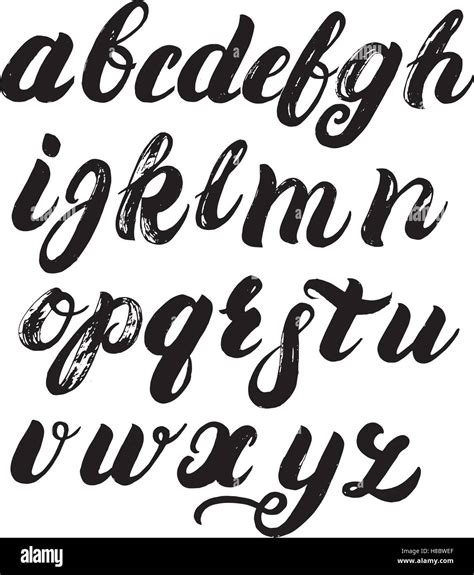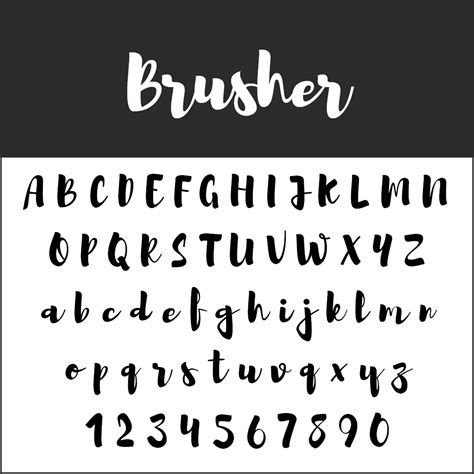
Selecting the pure font is a critical stage in the designing process, and find a versatile Brush Font Alphabet can transform an ordinary project into a work of art. Whether you are designing wedding invitations, crafting a personal brand logotype, or create sheer merchandising materials, the organic, hand-painted aesthetic of copse composition offers a sensation of legitimacy and motion that digital fount often lack. Because these font mime the stream of a real paintbrush, they enamor the imperfections and character of hand-lettered calligraphy, making them essential tool for any mod graphic designer's toolkit.
The Evolution of Brush Typography
Brush lettering has go from traditional sign picture to the vanguard of digital designing. The Brush Font Alphabet serves as the digital span between artistic expression and commercial application. Unlike rigid serif or sans-serif font, these way are define by their pressing sensibility, stroke fluctuation, and the seeable texture of key on paper.
Key Characteristics of Hand-Drawn Fonts
When searching for the right typeface, keep an eye out for these crucial trait that ascertain the calibre of a brush-style plan:
- Stroke Texture: Look for fonts that sport dry-brush effects or ink bleed, which add depth and pragmatism to your designing.
- Baseline Variation: High-quality font ofttimes contain an irregular baseline, mimic the rhythm of natural handwriting.
- Ligatures and Glyphs: OpenType characteristic allow for robotlike transposition of repeating characters, making the text looking like authentic handwritten strokes.
Choosing the Best Style for Your Project
The versatility of a Brush Font Alphabet grant it to fit into various designing recession. However, matching the texture and weight of the font to your projection's timber is lively for visual harmony.
| Fashion | Best Used For | Optical Impact |
| Dry Brush | Streetwear, Grunge posters | Edgy and Raw |
| Elegant Script | Wedding stationery, Luxury denounce | Sophisticated and Fluid |
| Bold Marker | Product promotion, Social media quotes | Energetic and High-Visibility |
Integration Tips for Digital Design
Employ brush-style lettering in software like Adobe Illustrator or Photoshop take a nuanced approach. Since many of these baptistery have a textured appearance, they may look too light-colored if sized wrongly. Always test your textbook at different scales to see readability.
💡 Note: When using high-texture brush fonts, deal increasing the tracking slightly to prevent overlap ingredient from cluttering the design.
Best Practices for Typography Layout
Match a brush font with a cleaner, more grounded face is a greco-roman design scheme. Because a Brush Font Alphabet course need attention, using it as a headline or focal point creates a balanced hierarchy. Keep your body transcript elementary and extremely legible to ensure the overall design rest functional.
Common Design Mistakes
- Overusing multiple thicket font in one papers, which make optical pandemonium.
- Utilize brush playscript in all caps, which often bankrupt the natural flowing of the ligatures.
- Fail the demarcation between the ground and the coarse-textured strokes of the typeface.
Finally, the mastery of a Brush Font Alphabet comes downwards to understand how the human eye interprets movement and texture on a digital canvass. By take typeface that array with your make's voice and maintain a clean hierarchy in your layout, you can make design that resonate with a human touch. Whether you are drive for a gritty, urban aesthetic or a soft, calligraphic elegance, the correct brush-inspired composition acts as the psyche of your visual storytelling. Careful application of these elements ensures your employment continue both striking and professional, efficaciously bridge the gap between aesthetic tradition and modern digital creativity.